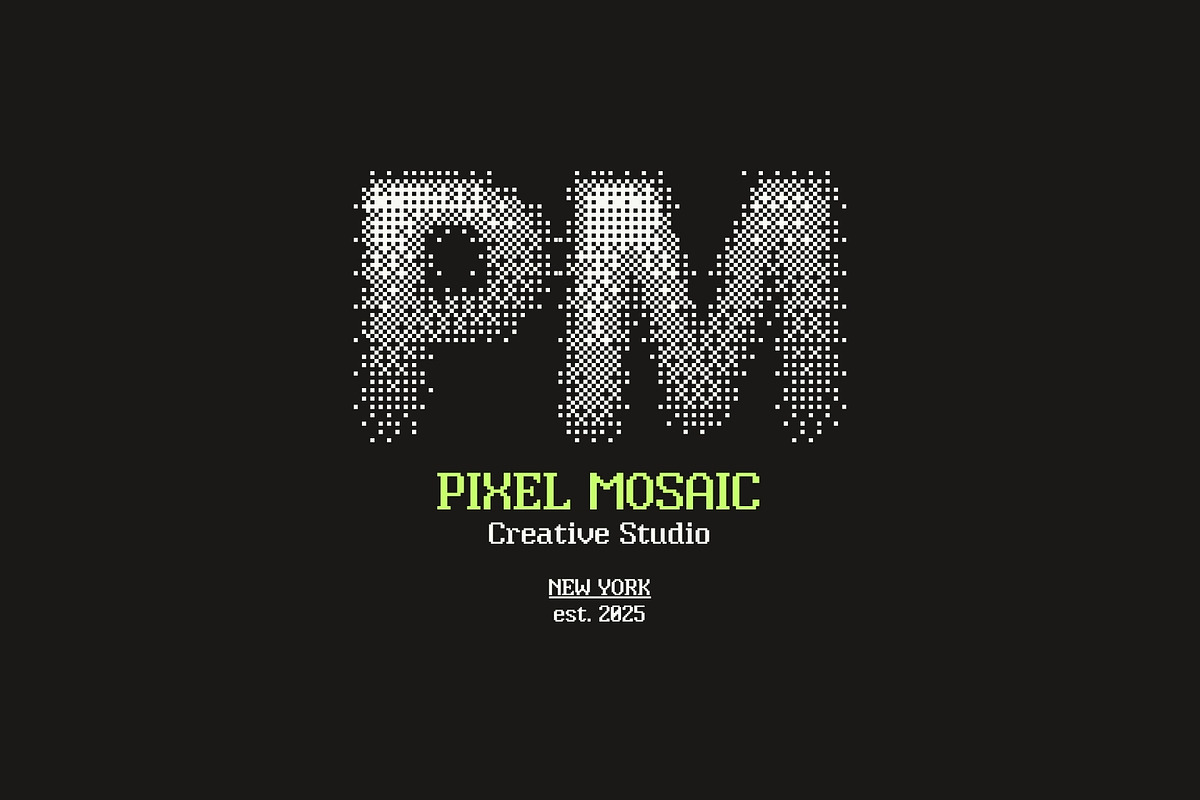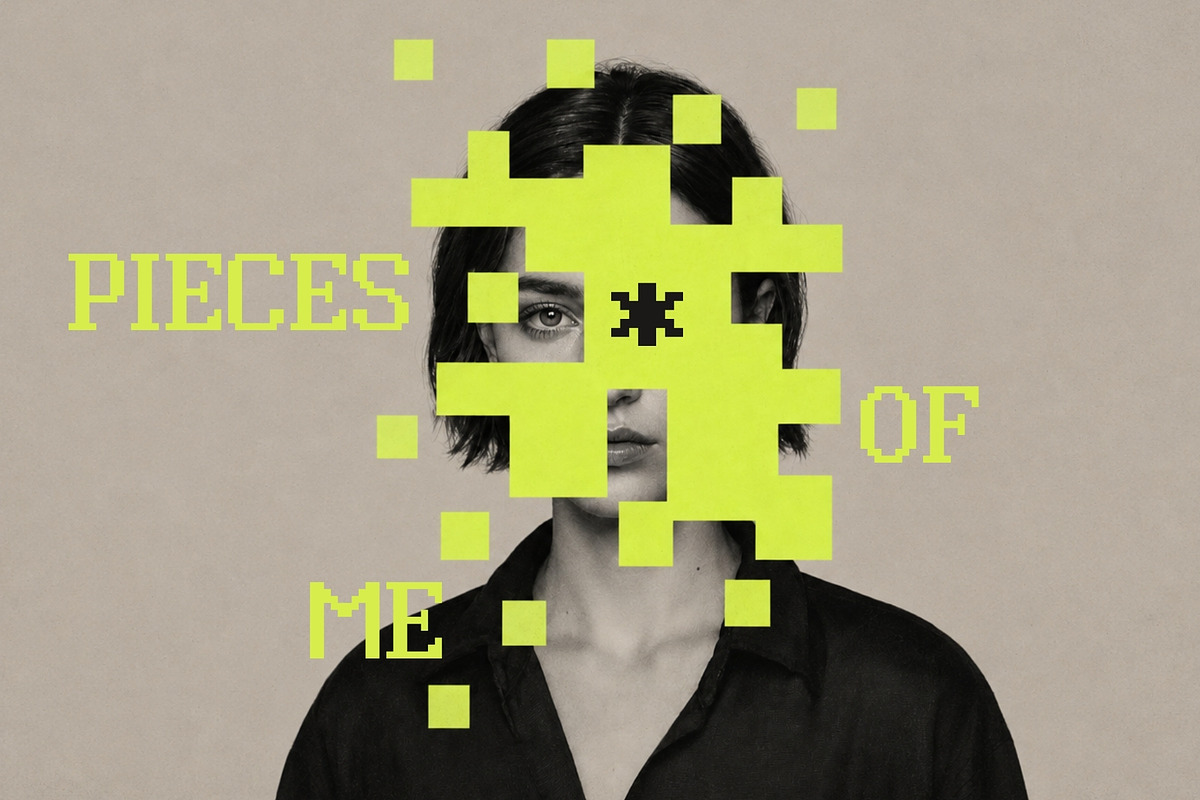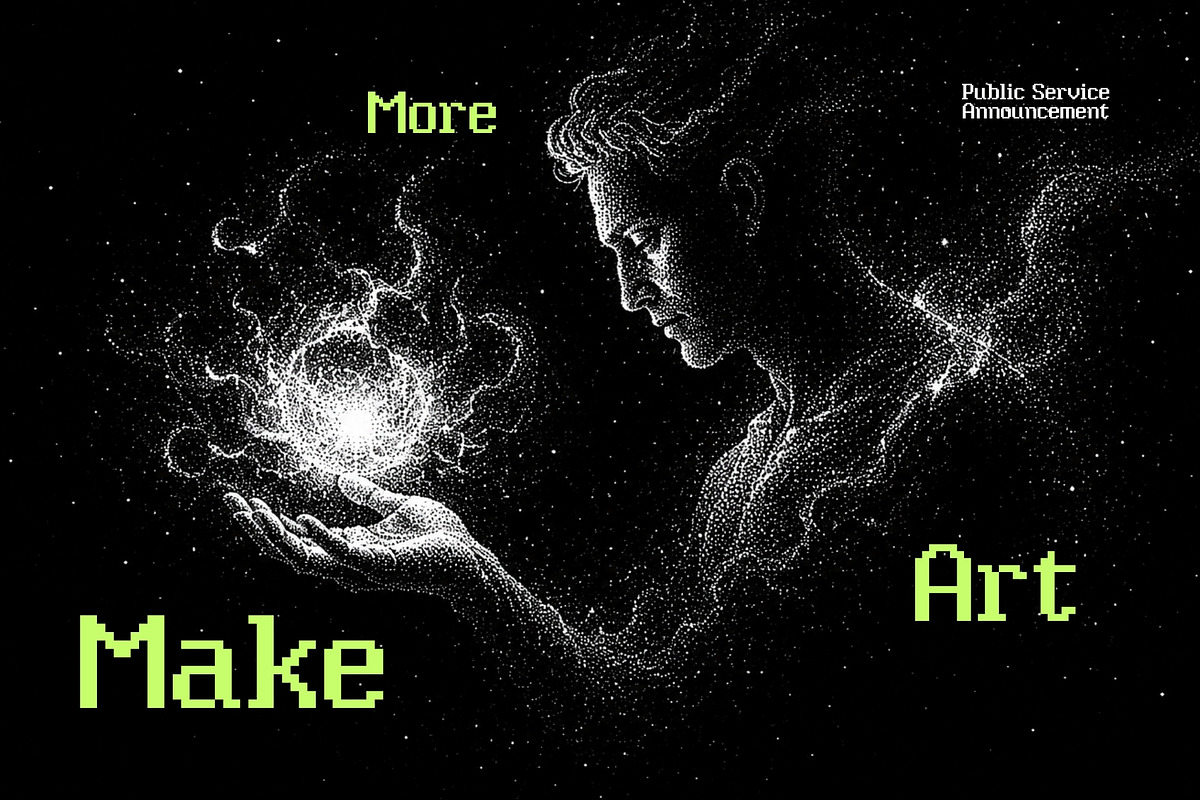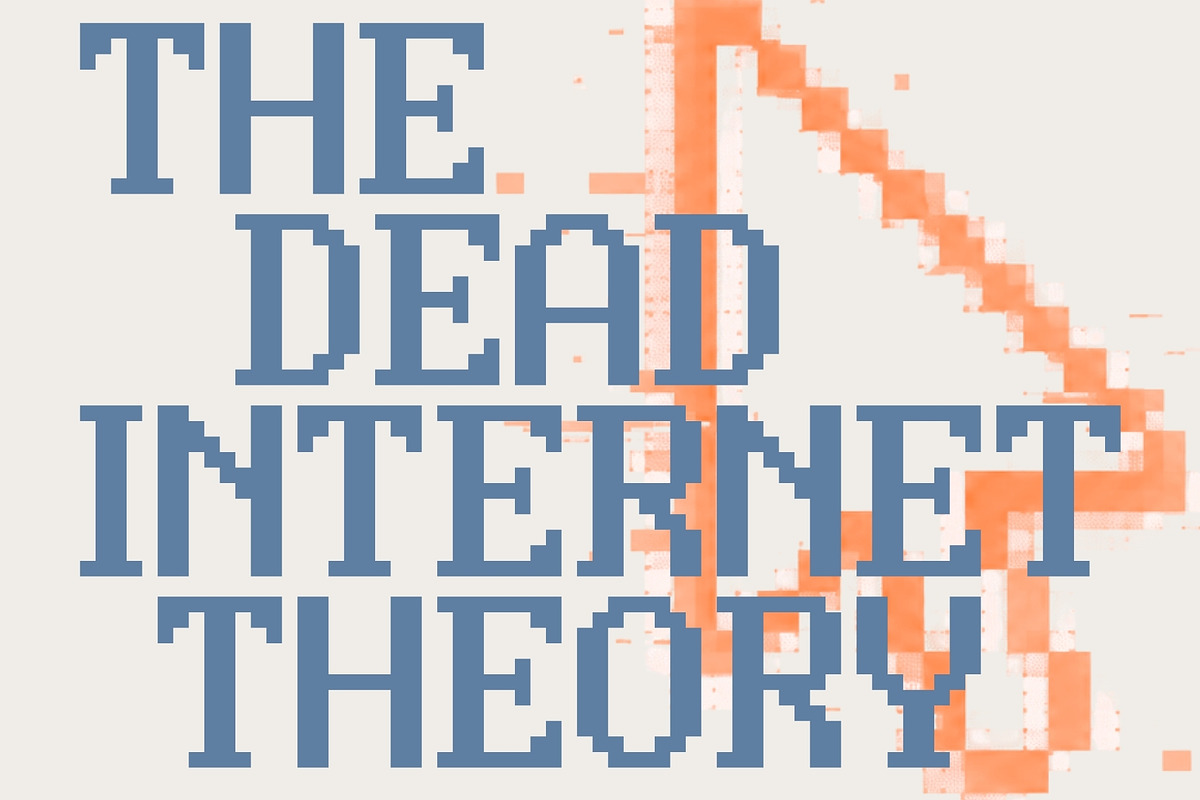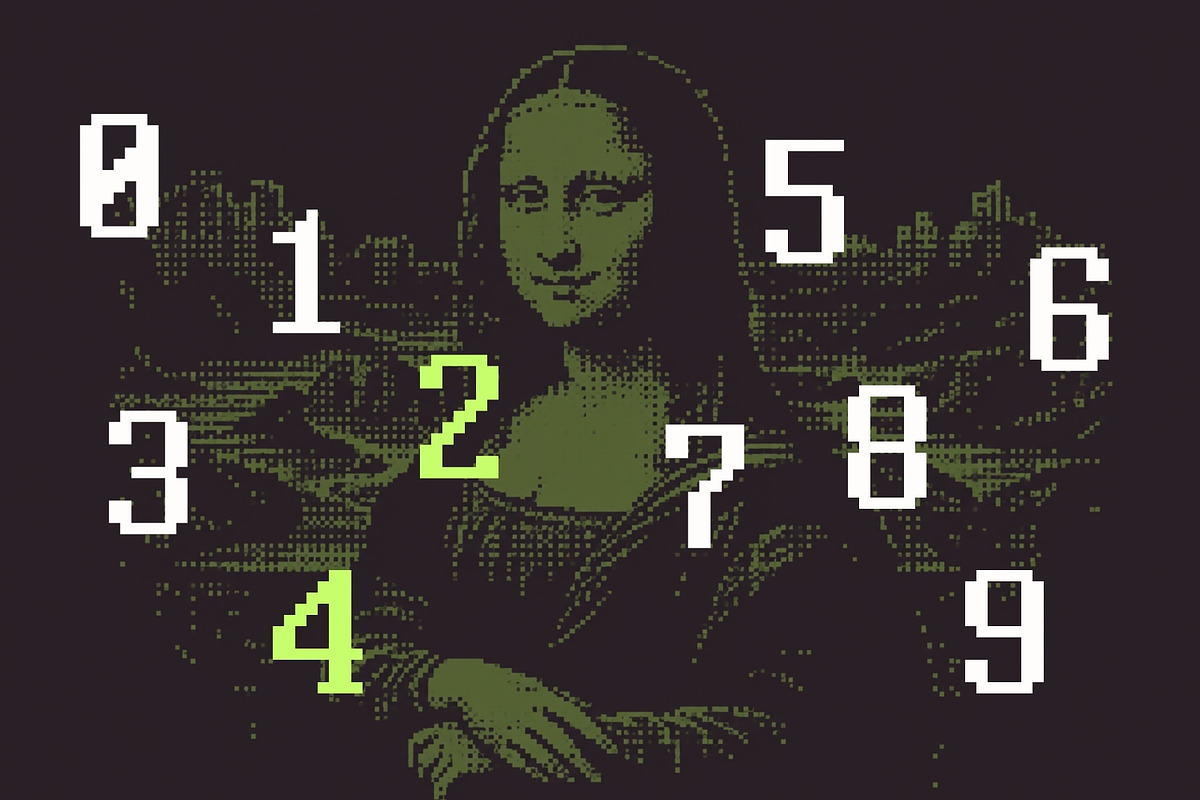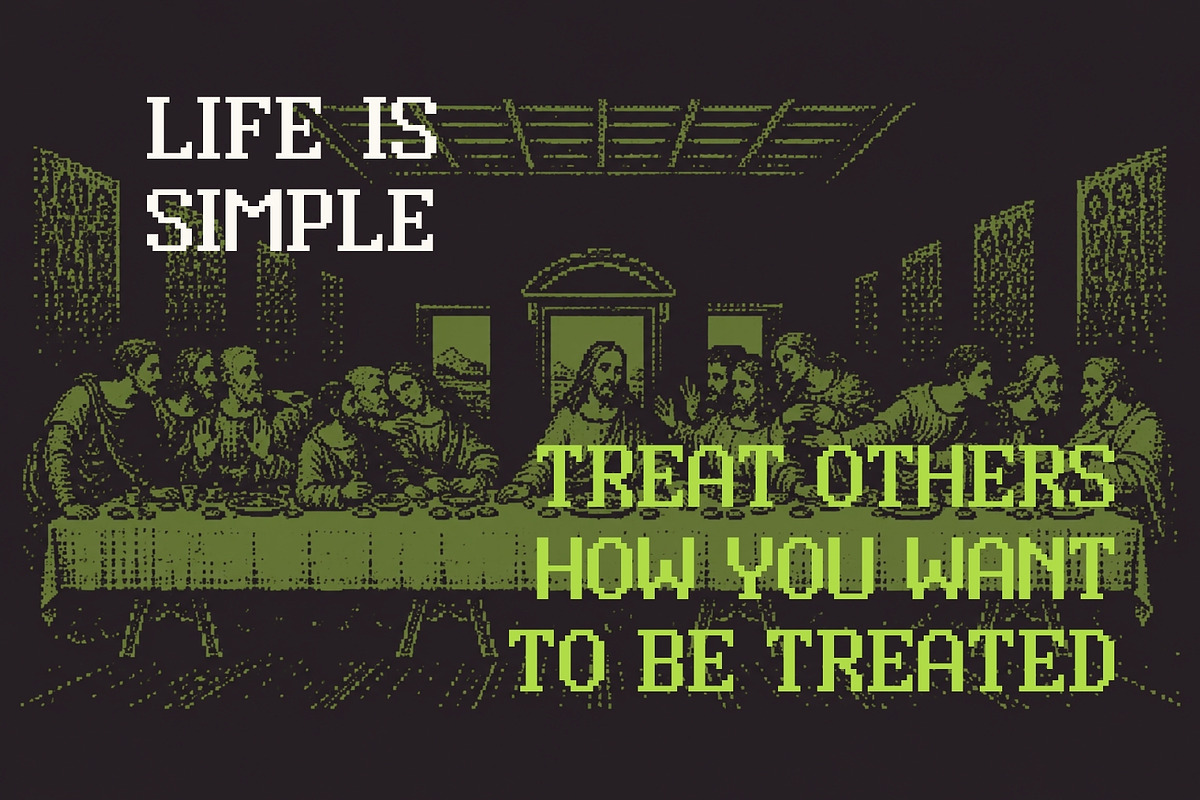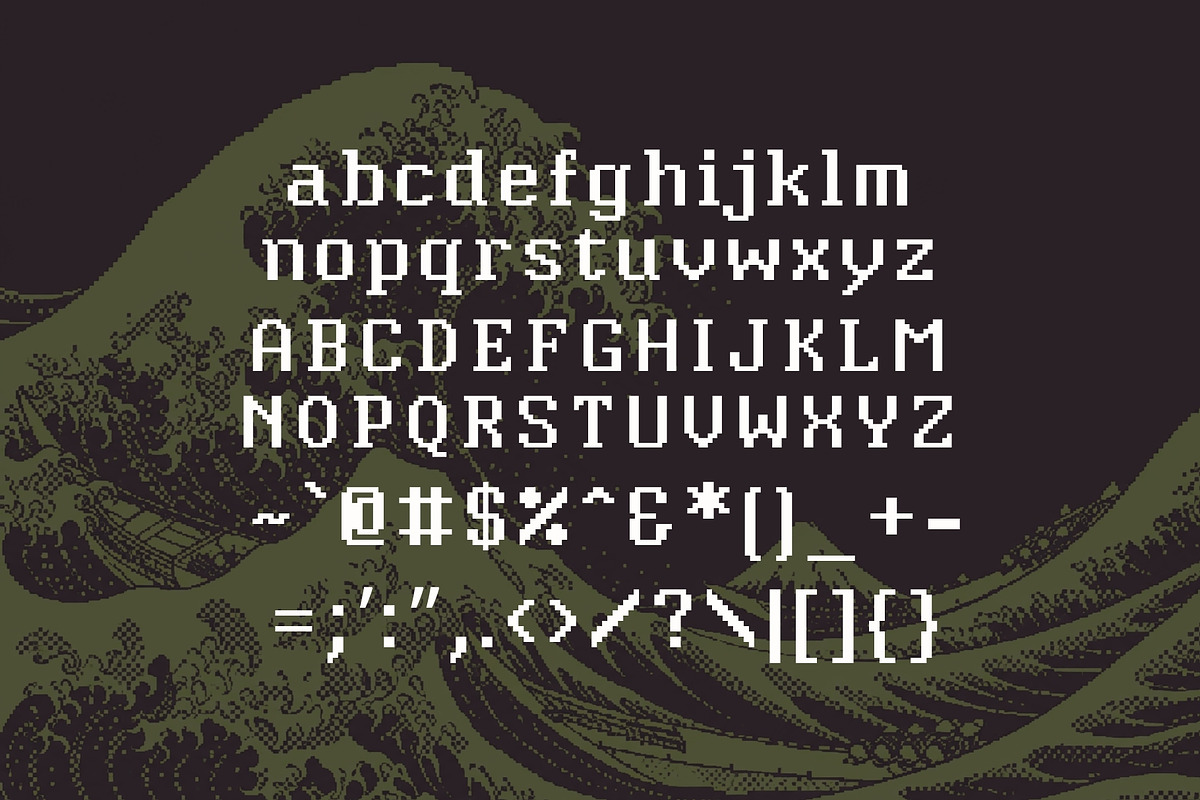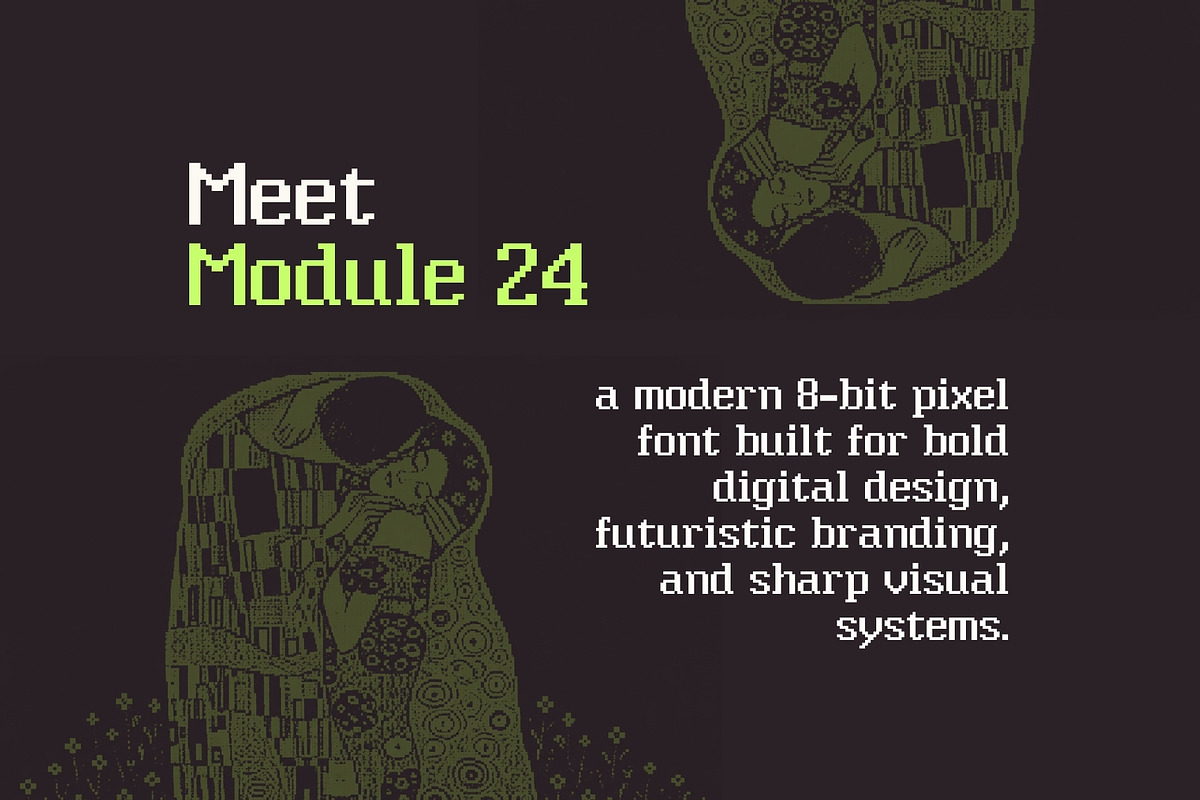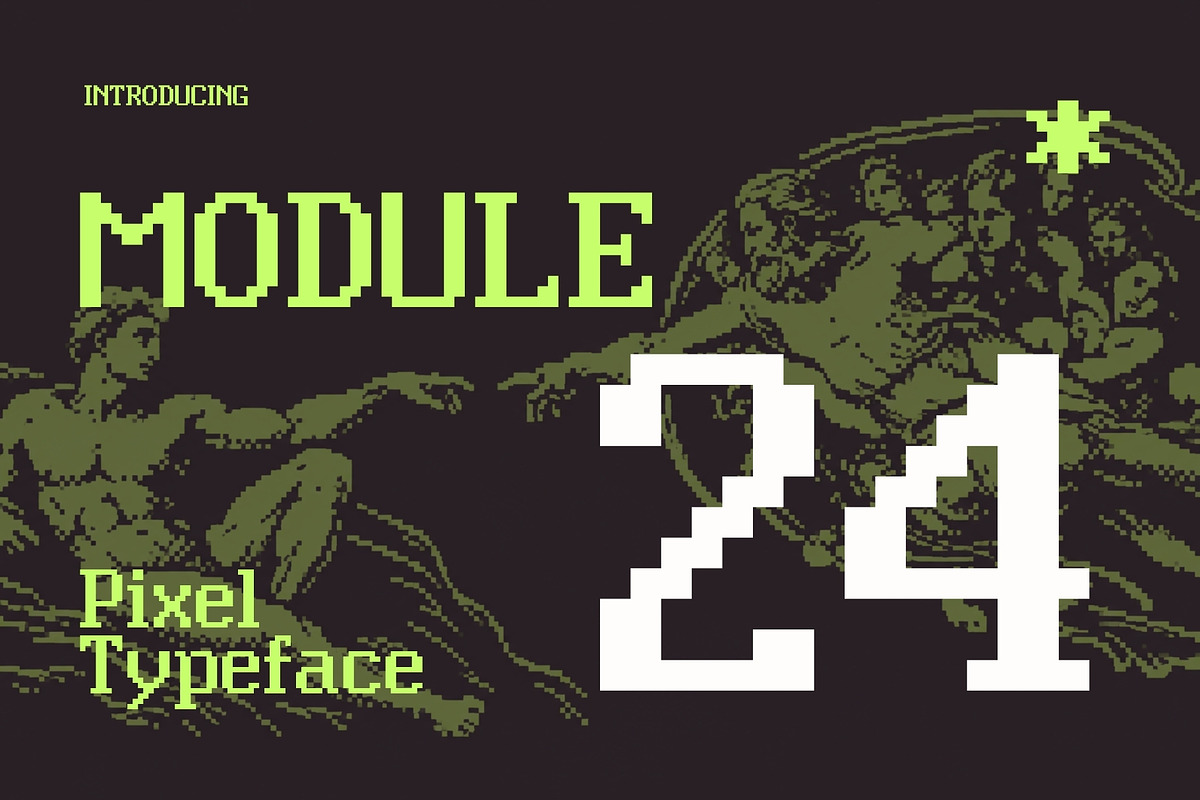
Module 24 - 8Bit Tech Font
Meet Module 24, a modern 8-bit pixel font built for bold digital design, futuristic branding, and sharp visual systems.
Inspired by classic bitmap lettering, retro computer interfaces, early video games, and modern technology aesthetics, Module 24 blends nostalgic pixel construction with a cleaner, more contemporary edge. Its geometric forms and structured rhythm give it a precise, modular personality that feels equally at home in a retro arcade world or a cutting-edge tech campaign.
Designed to stand out, Module 24 works especially well in branding, advertisements, graphic design, film titles, posters, logos, websites, album artwork, gaming projects, product packaging, editorial layouts, social media graphics, and digital interfaces.
Its pixel-based construction makes it perfect for designers working with technology, AI, gaming, cyber-inspired visuals, startups, software, electronics, futuristic products, and experimental creative work. At larger sizes, the blocky details become a strong visual feature, while smaller applications retain a crisp digital character.
Whether you're building a futuristic brand identity, creating a cinematic title card, designing a retro-tech poster, or giving a modern campaign a distinctive digital edge, Module 24 brings the unmistakable energy of pixel typography into a polished contemporary form.